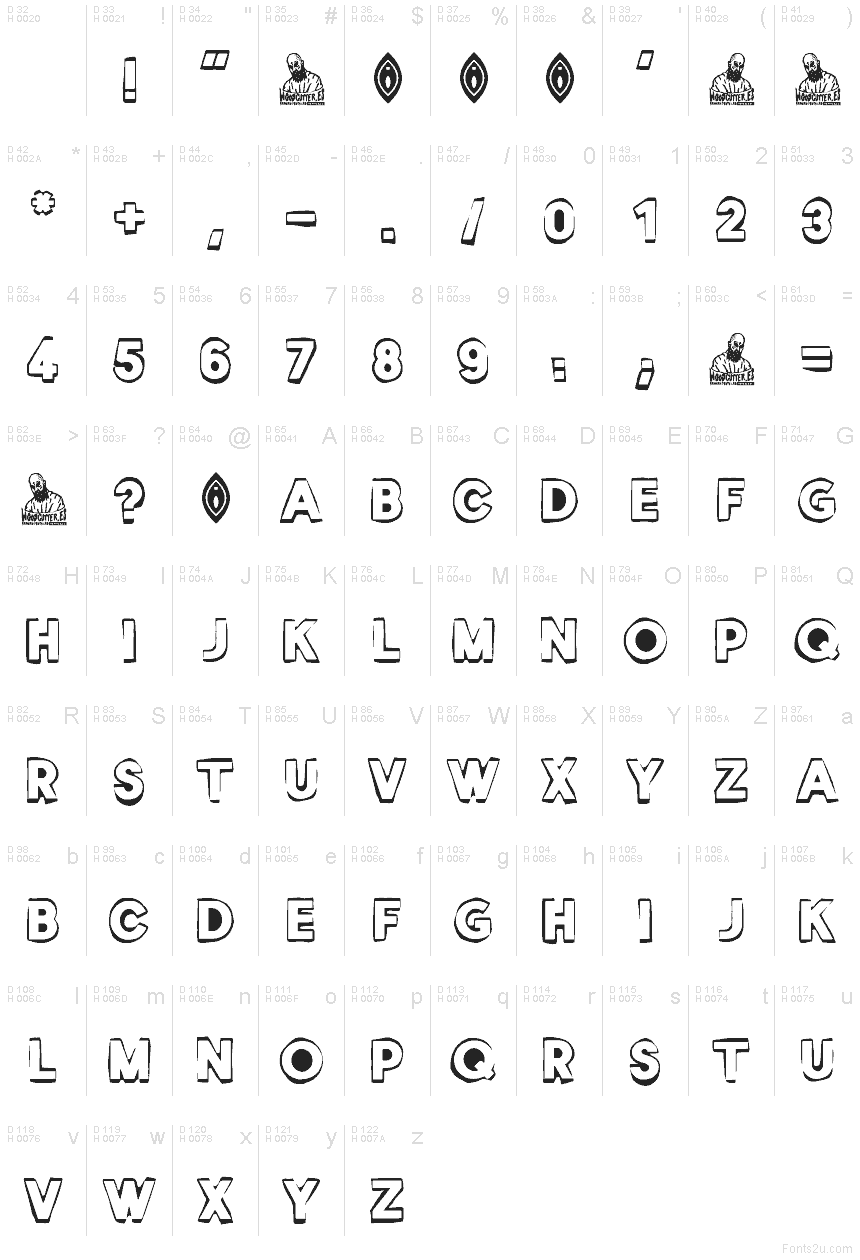
Simetría Vaginal
Simetría Vaginal font by Woodcutter Manero is a free eroded outline display typeface. Thick, rounded letters are punched out with a hollow core, then scuffed at the edges like chalk dragged over gritty concrete. The rhythm hits loud and even, so words lock up tightly while the distressed outline keeps them raw and human—bold without feeling sterile.
Using Simetría Vaginal, headlines snap with DIY attitude on gig posters, zines, protest placards, album covers, skate graphics, and streetwear drops. This free font loves big sizes and high-contrast color blocks; try pairing it with a clean geometric sans for captions to keep the noise focused and the message clear.